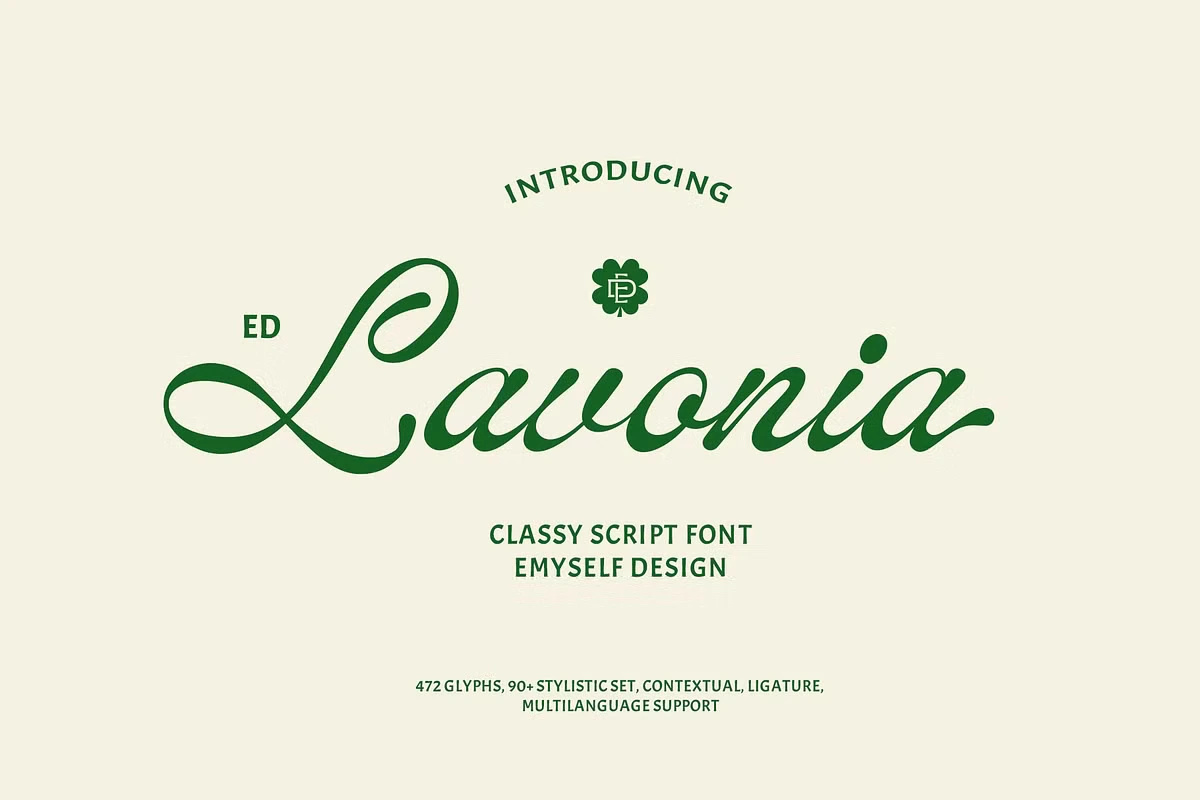
ED Lavonia is a modern yet elegant handwritten font inspired by classic book manuscripts. Its sophisticated design makes it a versatile choice for various artistic projects. With over 90 stylistic variations and additional design features, this script font offers exceptional flexibility, allowing users to create stunning visuals across different languages. Whether used for branding, artistic typography, or decorative text, ED Lavonia ensures a refined and professional look.
This font seamlessly enhances creative works such as logos, invitations, quotes, packaging, and editorial designs. With 472 glyphs, including uppercase and lowercase letters, punctuation, symbols, and stylistic alternatives, it provides endless design possibilities. Contextual alternates and ligatures further improve readability and aesthetic flow, making it easy to achieve an elegant, natural handwritten effect in any project.